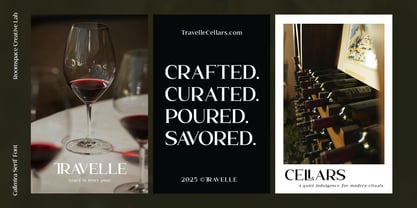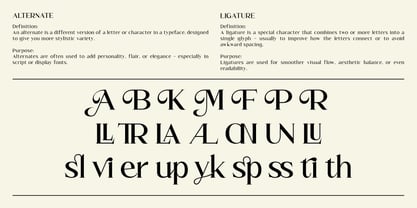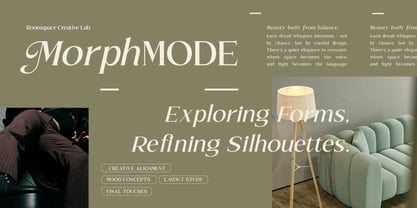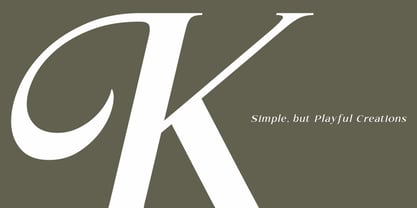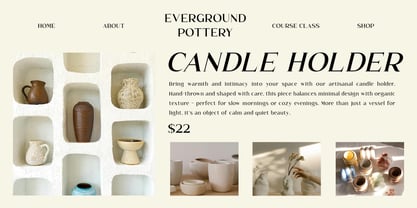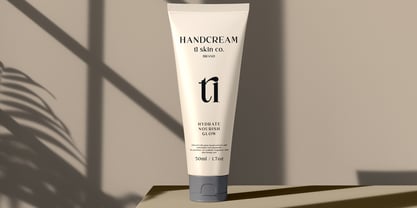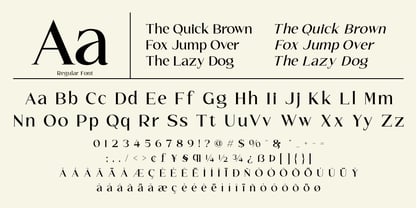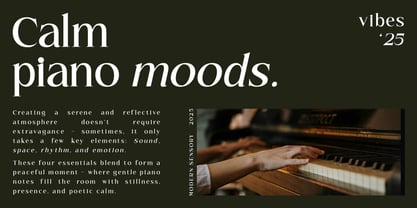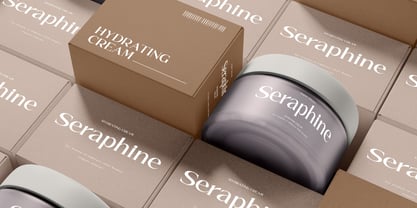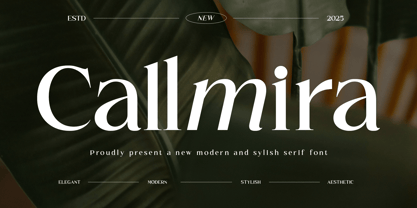
Callmira
The Callmira Font Family was designed by Bakhrudin Ja'far and published by Jafar07. Callmira contains 2 styles and family package options.
Callmira is a modern serif typeface that blends stylish curves with clean structure giving your work a polished and professional touch. Designed with versatility in mind, it works beautifully for logos, branding, headlines, editorial layouts, and more. Whether you’re crafting a luxury brand, designing an elegant website, or building a timeless visual identity, Callmira adds a fresh but classic tone that feels just right. Great for upscale branding, publishing, and visual design systems Callmira helps you create with confidence refined, readable, and undeniably elegant.
A little from my personal design & background: My name is Bakhrudin Ja'far, I live in Malang, Indonesia. I am currently completing my degree in visual communication design and I have worked as a lettering artist and logo designer for many years. I finally started my studio called roocspace creative lab (jafar07) Studio a few months ago and with my team made my letters into typography.